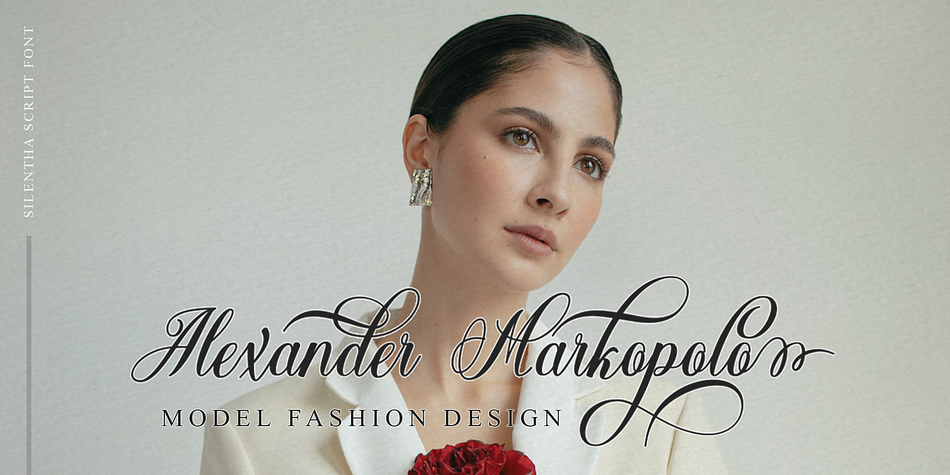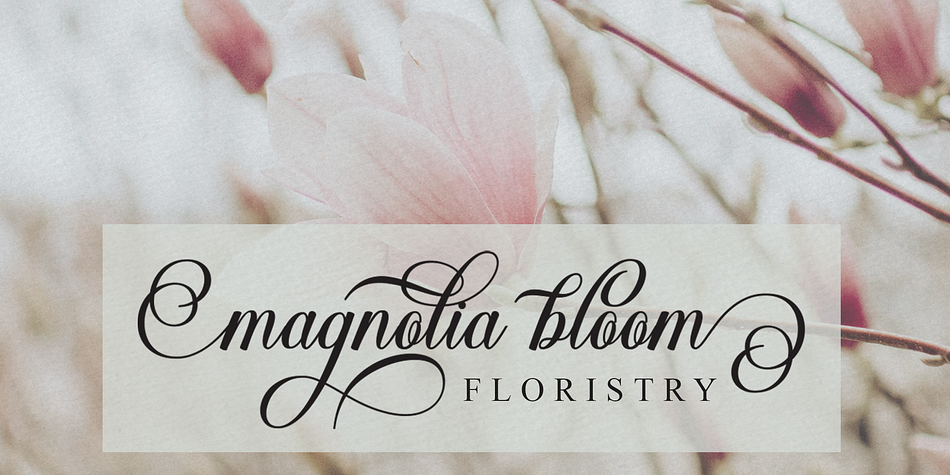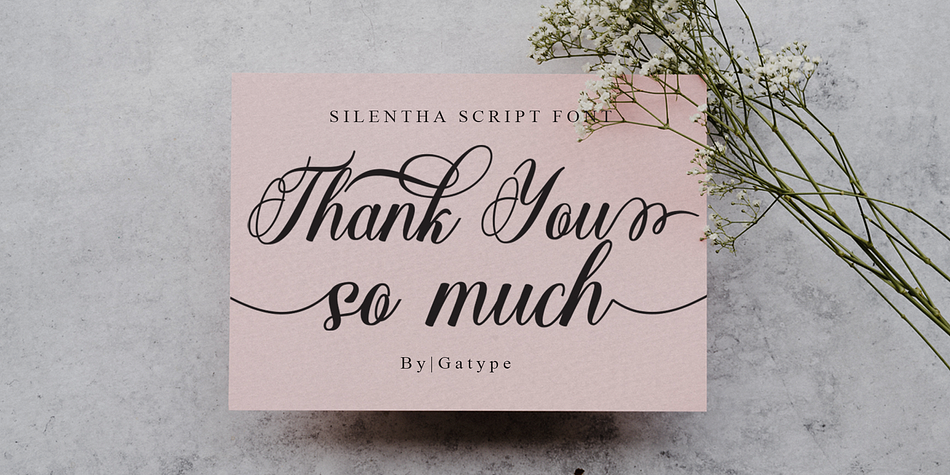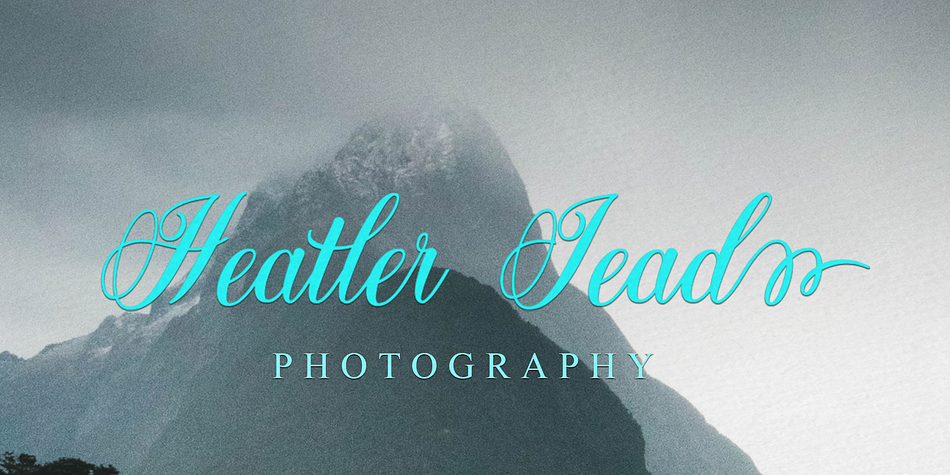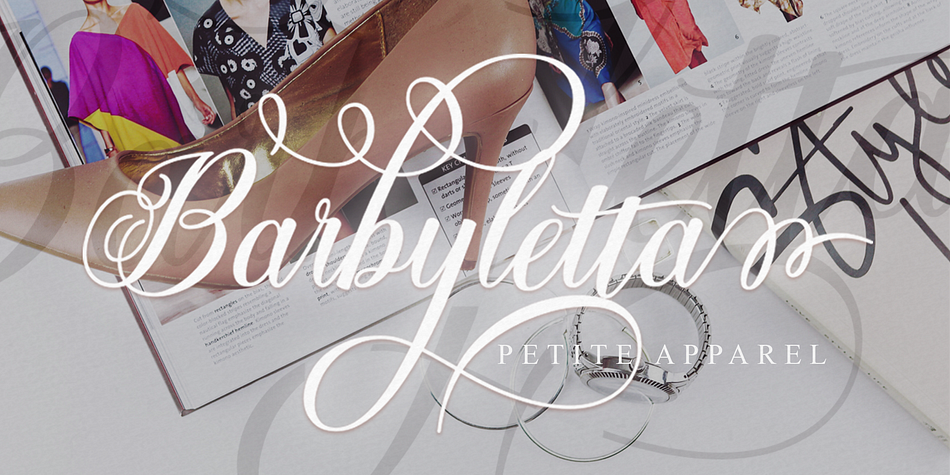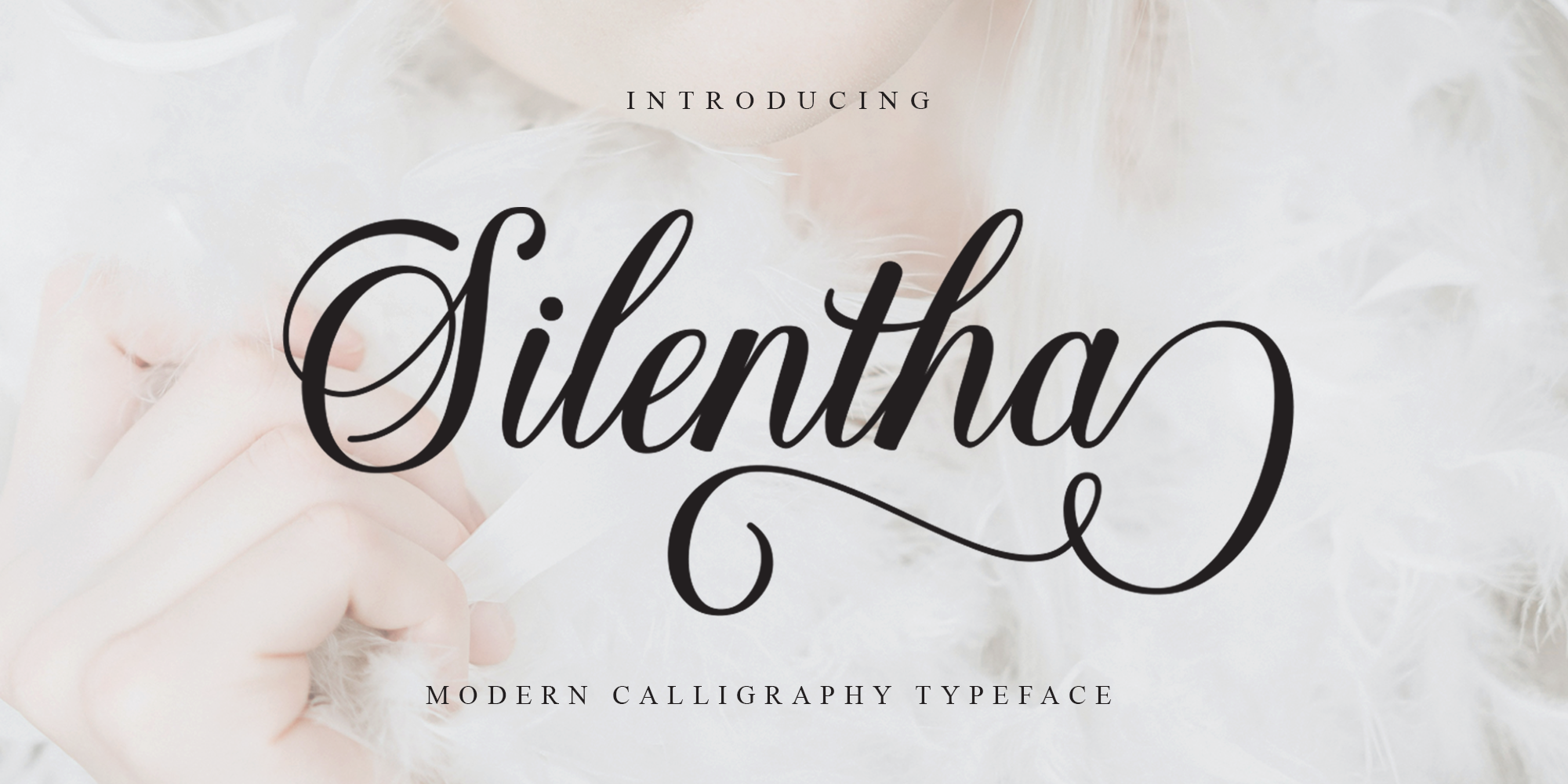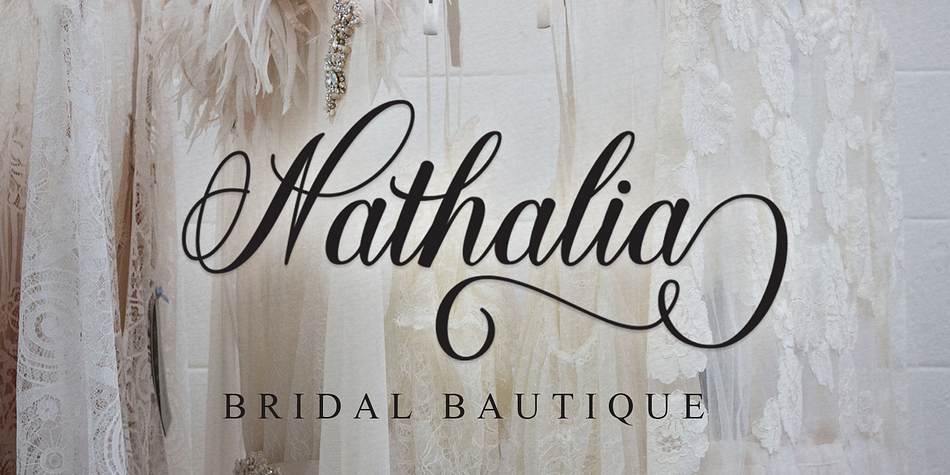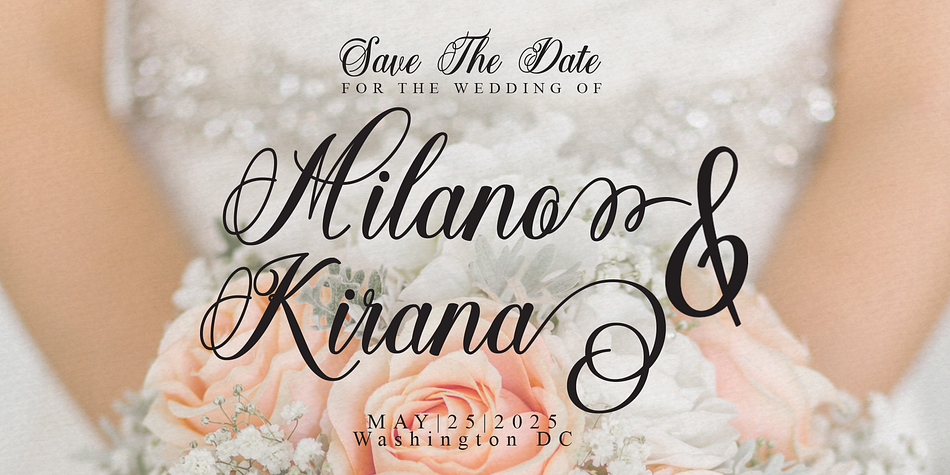
Silentha
Silentha is a modern calligraphy font family published by Gatype.
Silentha is a beautiful script suitable for branding, wedding invitations, and any other romantic project.silentha coded with PUA Unicode, which allows full access to all additional characters without having to design any special software. Mac users can use Font Book, and Windows users can use Character Map to view and copy any additional characters for pasting into your favorite text editor / application.